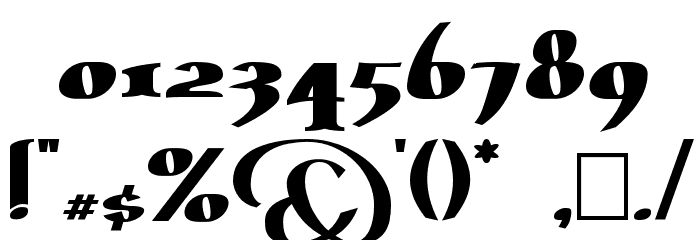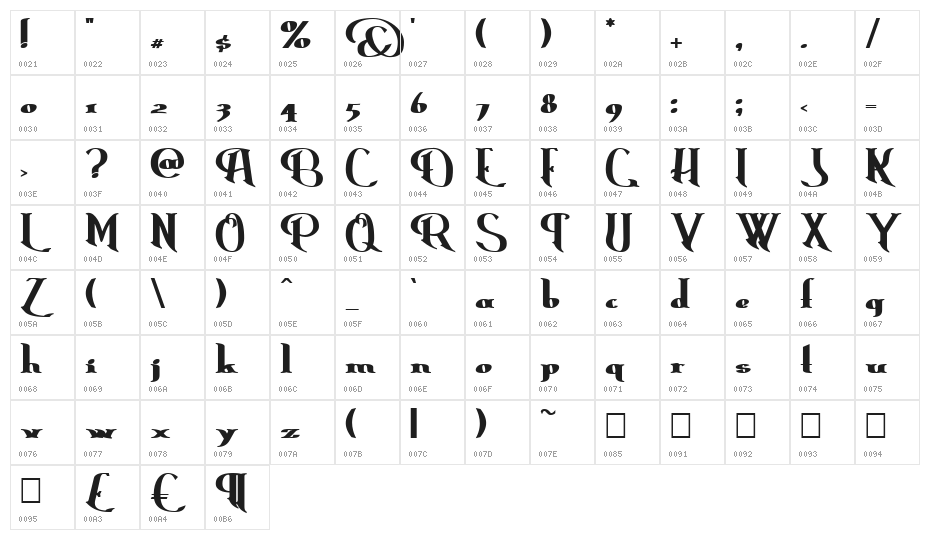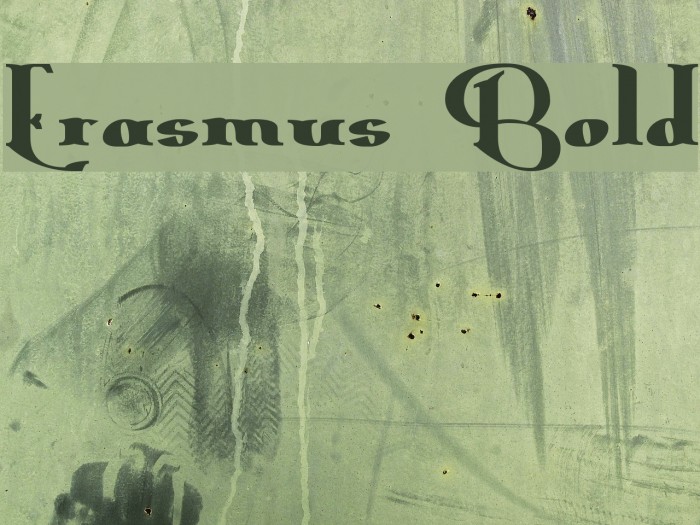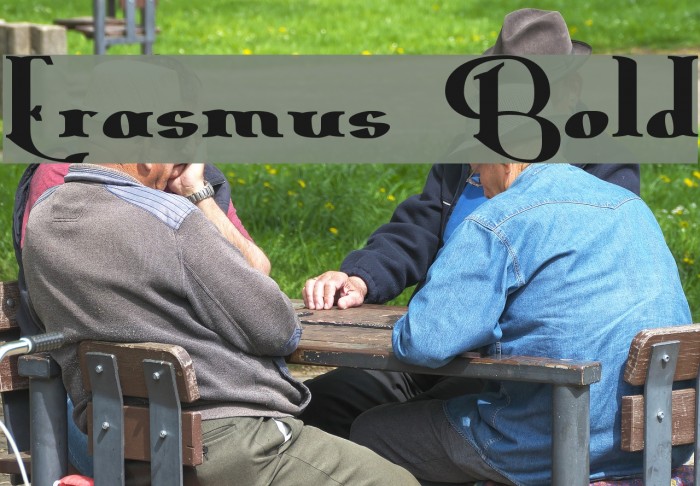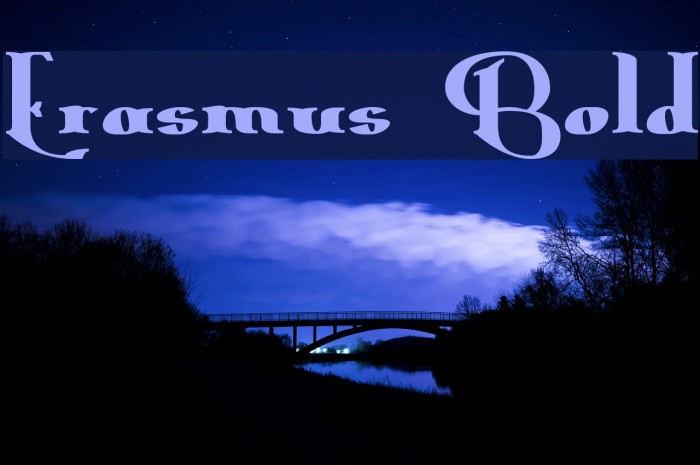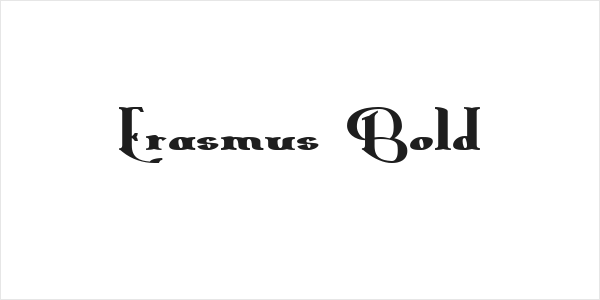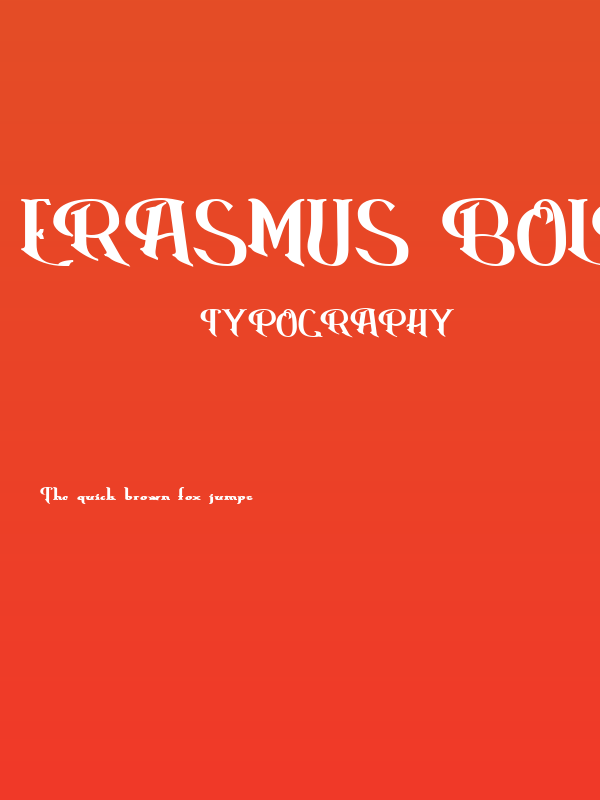
Erasmus Bold Font
Erasmus Bold Description
This font features a bold and dramatic style with a strong presence. The uppercase letters exhibit a unique blend of sharp angles and smooth curves, creating a dynamic and eye-catching appearance. The lowercase letters maintain a consistent style, with slightly exaggerated serifs that add to the font's distinctive character. Numbers and special characters are designed to match the boldness and flair of the alphabet, making them suitable for a variety of creative applications. The overall design is reminiscent of vintage typography, yet it maintains a modern edge that can enhance both traditional and contemporary projects.
| Overall Style | Vintage, Modern |
| Proposed Projects | Ideal for branding, poster design, book covers, and any project requiring a strong visual impact. |